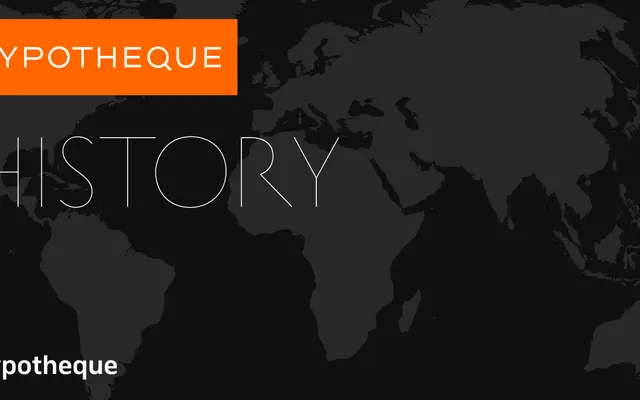
History specimen from Typotheque
A 21-layer modular type system from Typotheque that lets designers stack discrete letterform components to construct historically-inflected chromatic display type.
History is built from 21 numbered layers, each encoding a different structural or decorative element drawn from type history, which can be combined freely to produce compound letterforms with depth, texture and chromatic complexity. Pre-set combinations are named after cities, from Amsterdam to Zaragoza, offering starting points that demonstrate the breadth of the system. It is one of the most architecturally rigorous layered typefaces in contemporary type design, with a combinatorial range that goes well beyond typical two-colour chromatic fonts.
History is a modular, layered type system composed of 21 discrete layers that can be combined to produce historically-referencing composite letterforms; it resists a single traditional classification and sits firmly in the display category as a chromatic or layered type system.